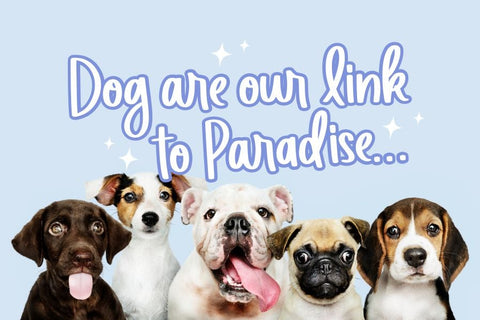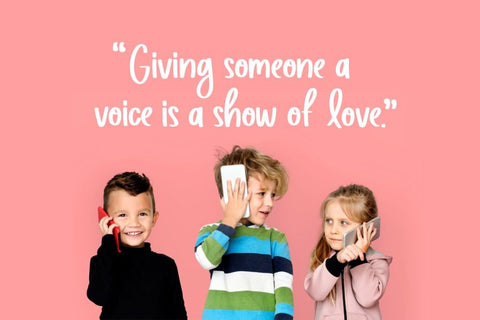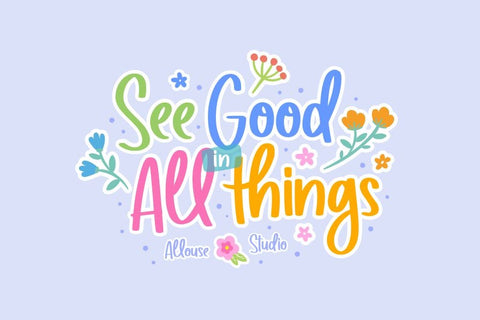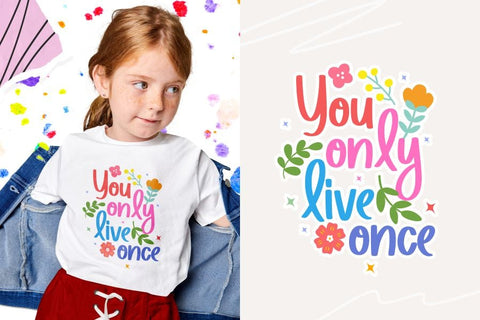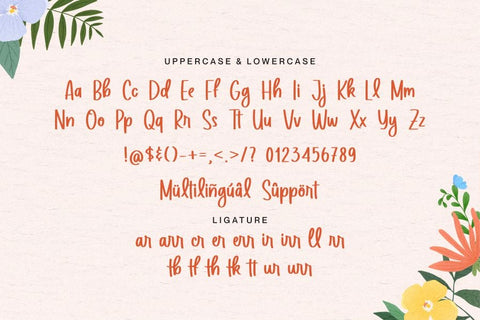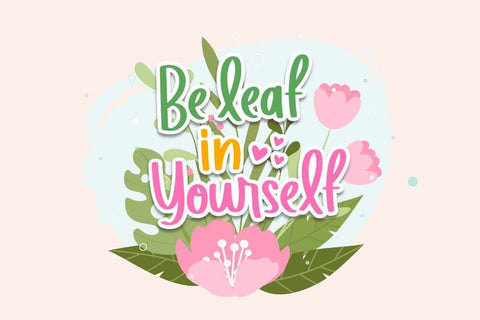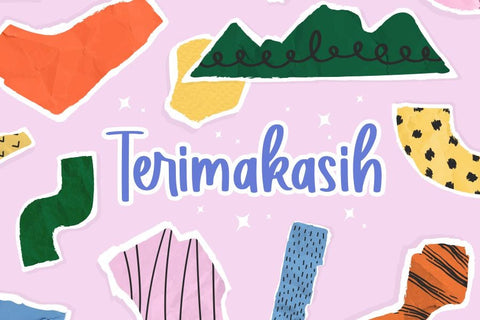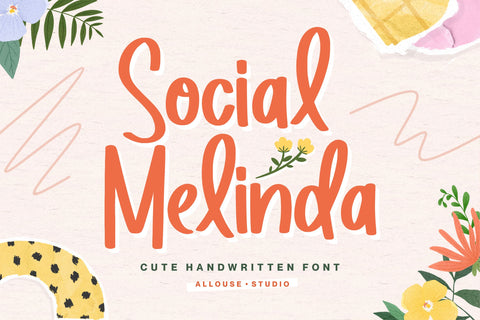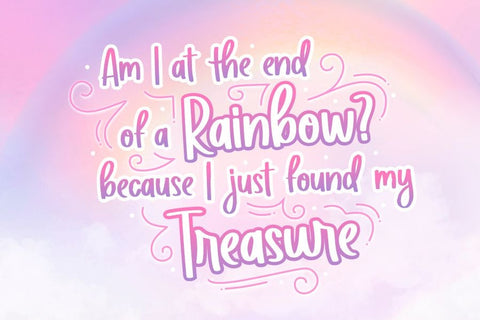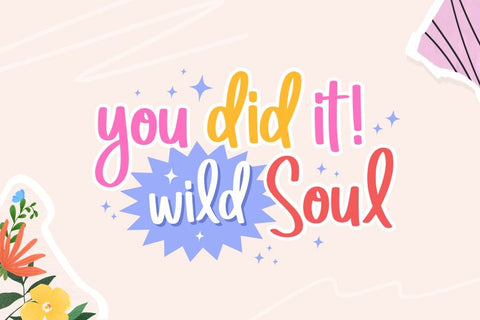
Social Melinda
Proudly Present, Social Melinda
Social Melinda is a Cute Handwritten Font
Social Melinda is perfect for product packaging, branding project, megazine, social media, wedding, or just used to express words above the background.